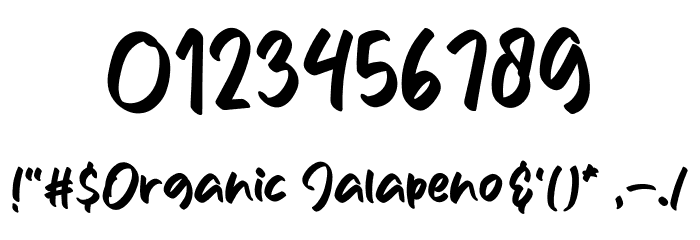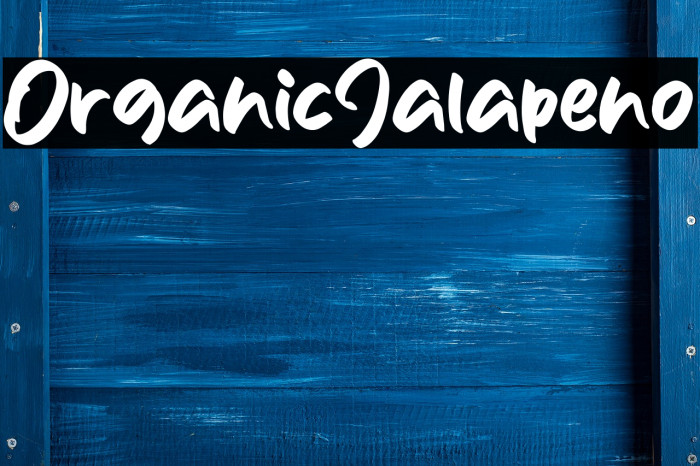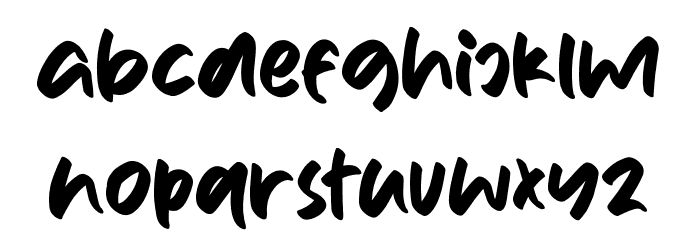
OrganicJalapeno Font
This font features a bold and expressive handwritten style, characterized by its fluid and dynamic strokes. The letters have a playful and organic feel, with varying thickness that adds a sense of movement and energy. The uppercase and lowercase letters maintain a consistent style, while the numerals and special characters complement the overall aesthetic. The font's informal and lively appearance makes it suitable for creative and artistic projects, where a personal touch is desired.
A bold, expressive handwritten font with fluid, dynamic strokes.
• Proposed Projects: Ideal for branding, packaging, social media graphics, and invitations where a personal and artistic touch is needed.
• Category: Handwritten
• Bold: Yes
• Italic: No
• Weight: Bold
• Width: Normal
• Character Spacing: Normal
• Contrast: Medium
• Overall Style: Decorative
• Use Case: Logos, Headlines, Posters